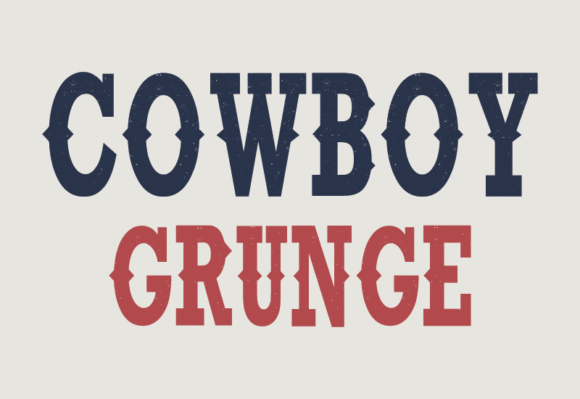
Introducing Cowboy Grunge Font, the ultimate choice for those seeking an authentic and captivating font for their resume design. Created by GraphicsNinja, this serif font embodies the rugged spirit of the Wild West, blending rustic charm with edgy flair.
Immerse yourself in the untamed wilderness and dusty trails as you embrace the legacy of those who dared to live on the edge of the unknown. Each character of Cowboy Grunge Font carries the weight of a weathered frontier, with bold strokes that reflect the resilience of those who tamed the untamed.
The worn-out leather-like serif adds a touch of authenticity and history to your resume, instantly captivating the attention of potential employers. It's not just a font; it's a journey back in time when the West was wild and the heart of a cowboy beat strong.
With its distinctive grunge texture, Cowboy Grunge Font tells a story of endurance and rebellion. It's as if the letters have weathered dust storms and endured long rides through desolate landscapes, adding a raw and rebellious quality to your resume design. Stand out from the crowd and showcase your fierce independence with this font.
The uppercase characters of Cowboy Grunge Font stand tall and proud, exuding confidence and strength. Just like the pioneers who faced the challenges of the Old West, let this font mirror your resilience and determination to conquer any obstacle that comes your way.
Unlock a world of adventure and excitement with Cowboy Grunge Font. Let your resume speak volumes about your willingness to take risks and carve your path through life. This font is not for the faint of heart; it's for those who embrace the thrill of the unknown and thrive in the face of adversity.
Don't settle for ordinary fonts when you can make a bold statement with Cowboy Grunge Font. Take a leap of faith and embark on a journey that will elevate your resume to new heights. Grab your lasso and wrangle those job opportunities with this captivating font!